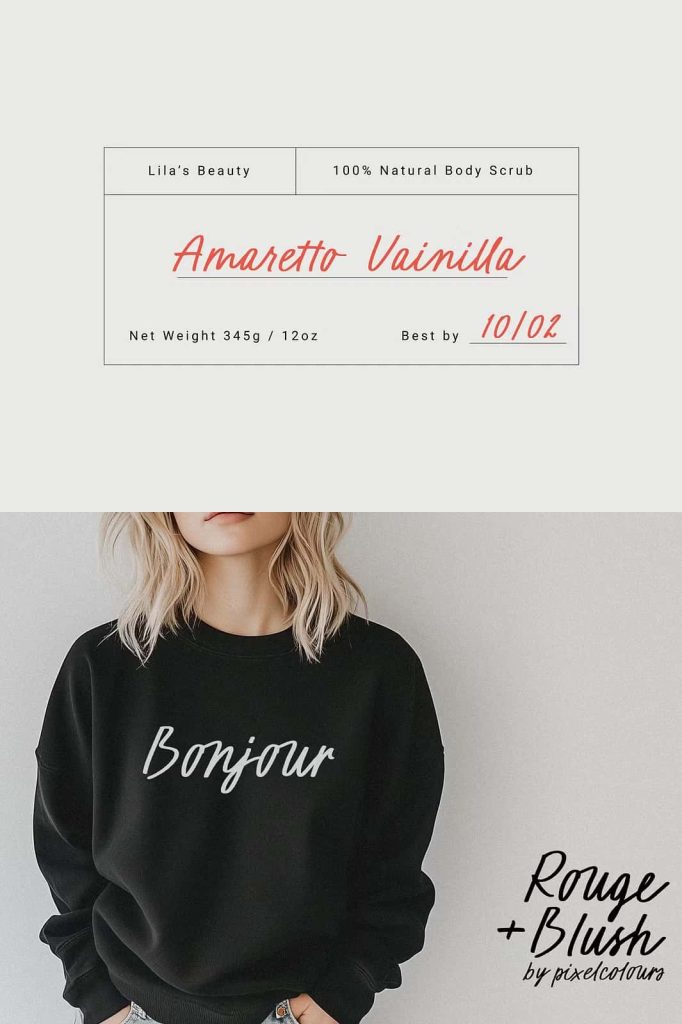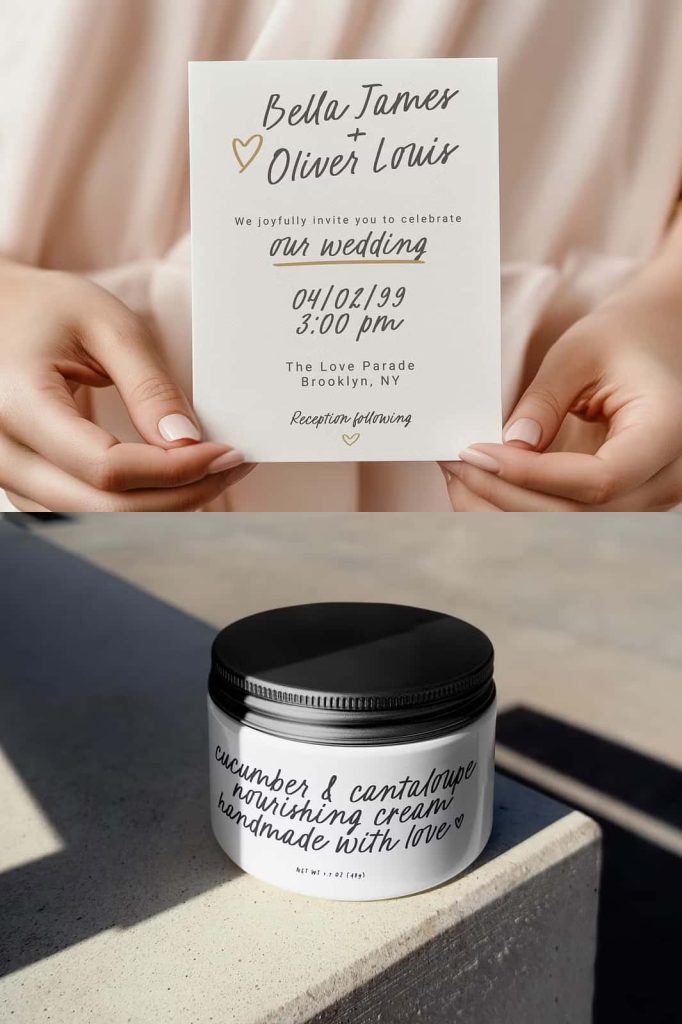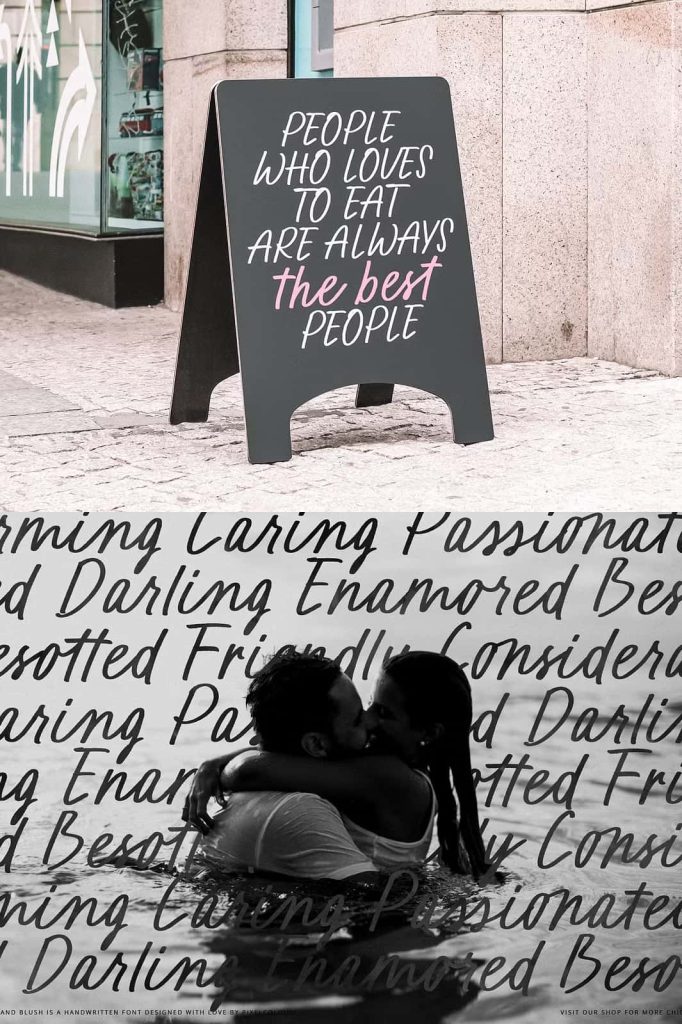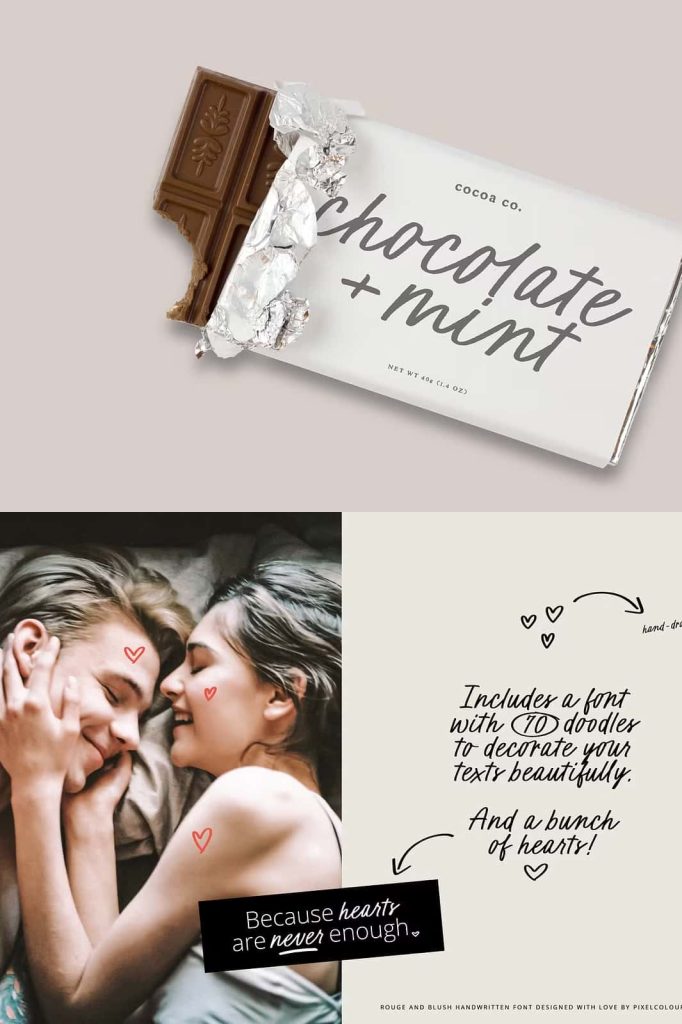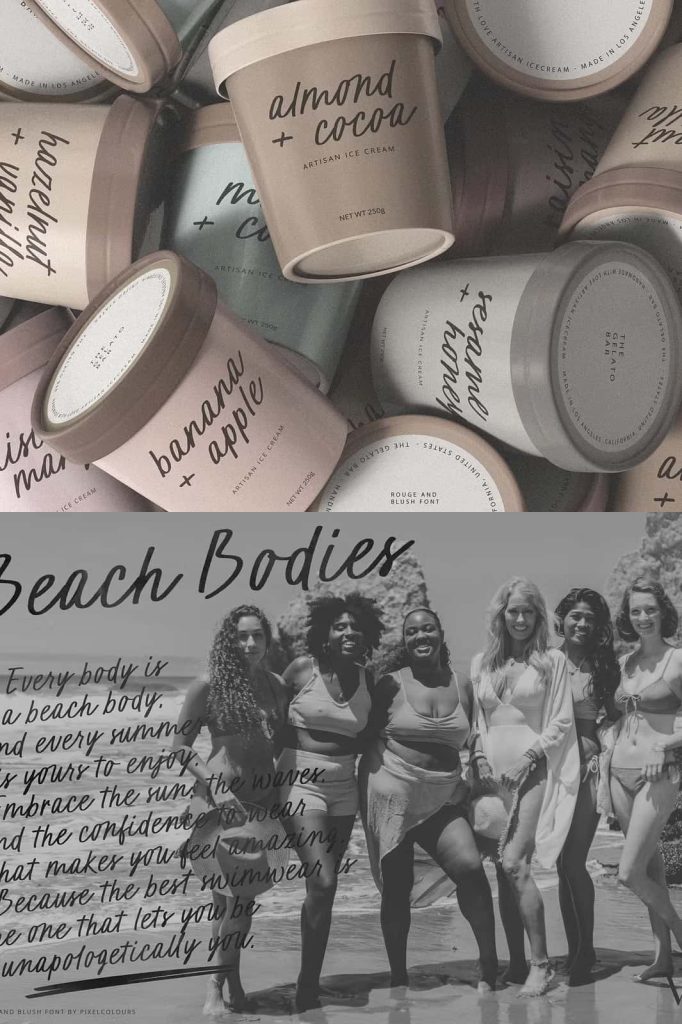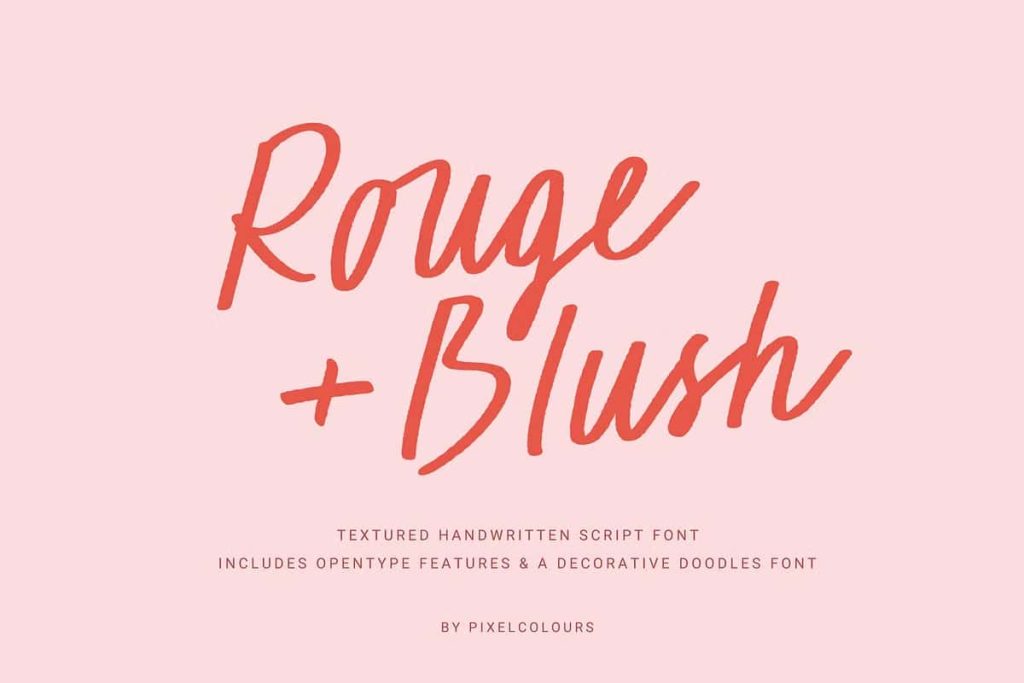
Script Font Duo Rouge +Blush
Rouge and Blush: A Handwritten Script Font with Organic Texture and Playful Charm
Rouge and Blush is a charming handwritten script font designed to actively bring personality, warmth, and creative expression into modern design projects. With its textured strokes and organic flow, this cursive typeface delivers a relaxed yet stylish appearance that feels both authentic and approachable. Rouge and Blush does more than decorate text; it helps designers communicate emotion and individuality through expressive typography.
This font appeals to creatives who want their designs to feel personal, human, and visually engaging. Its casual handwritten character allows messages to feel natural and sincere, making it a valuable addition to any designer’s font library.
Organic Handwritten Style with Natural Texture
Rouge and Blush features a handcrafted look that celebrates organic imperfections and textured strokes. Each letter appears as though it was written by hand, giving the font a lively and genuine quality. The subtle texture adds depth and visual interest without overpowering the design.
This organic structure helps the font feel grounded and authentic. Designers can rely on Rouge and Blush to add warmth and softness to layouts while maintaining clear readability across different formats.
A Cursive Font Full of Personality
The cursive style of Rouge and Blush actively enhances visual storytelling. Its flowing letterforms create a sense of movement and rhythm, guiding the reader’s eye naturally through the text. This sense of flow makes the font especially effective for expressive content such as quotes, messages, and personal statements.
Unlike rigid scripts, Rouge and Blush embraces a relaxed and casual tone. This balance allows it to communicate friendliness and creativity while still looking polished and intentional.
Perfect for Branding Projects
Rouge and Blush excels in branding design, where personality and authenticity play a critical role. The font helps brands establish a friendly and approachable identity, making it ideal for small businesses, creative entrepreneurs, and lifestyle brands.
Logos, brand marks, and promotional materials designed with this handwritten script font feel inviting and memorable. The organic texture adds character, helping brands stand out in competitive markets.
Ideal for Modern Wedding Invitations
For modern wedding stationery, Rouge and Blush offers a beautiful balance of elegance and casual charm. Its handwritten script style adds romance and warmth to invitations, save-the-dates, and reception details.
The font helps couples express personality and emotion through typography. Whether used for names, headings, or decorative accents, Rouge and Blush enhances the overall aesthetic of wedding designs with a soft and joyful touch.
Expressive Typography for Quotes and Social Content
Rouge and Blush works exceptionally well for quotes, inspirational messages, and social media graphics. Its flowing cursive style helps text feel engaging and expressive, encouraging viewers to connect with the message.
Designers can use this handwritten script font to create visually appealing quote designs, posters, and digital content that feel personal and authentic. The font’s playful tone keeps content approachable and visually dynamic.
Versatile and Easy to Use Across Media
Despite its handcrafted appearance, Rouge and Blush integrates smoothly into modern design workflows. It performs consistently across print and digital platforms, ensuring reliable results in a wide range of creative applications.
The font adapts well to different sizes and layouts, allowing designers to maintain a cohesive look across multiple design elements. From large headlines to subtle accents, Rouge and Blush delivers consistent style and clarity.
A Valuable Addition to Any Font Collection
Rouge and Blush proves that a handwritten script font can be both playful and professional. Its organic texture, casual charm, and expressive flow make it a versatile choice for designers seeking typography with personality.
Whether you are working on branding, wedding stationery, quotes, or creative projects, Rouge and Blush provides the flexibility and character needed to elevate your designs.
Add Warmth and Playfulness to Your Designs
Rouge and Blush brings together handwritten authenticity and modern design sensibility. By choosing this handwritten script font, designers gain a tool that enhances visual storytelling and strengthens emotional connection.
Use Rouge and Blush to add a playful, casual, and stylish touch to your work, and let your designs stand out with natural charm and expressive typography.